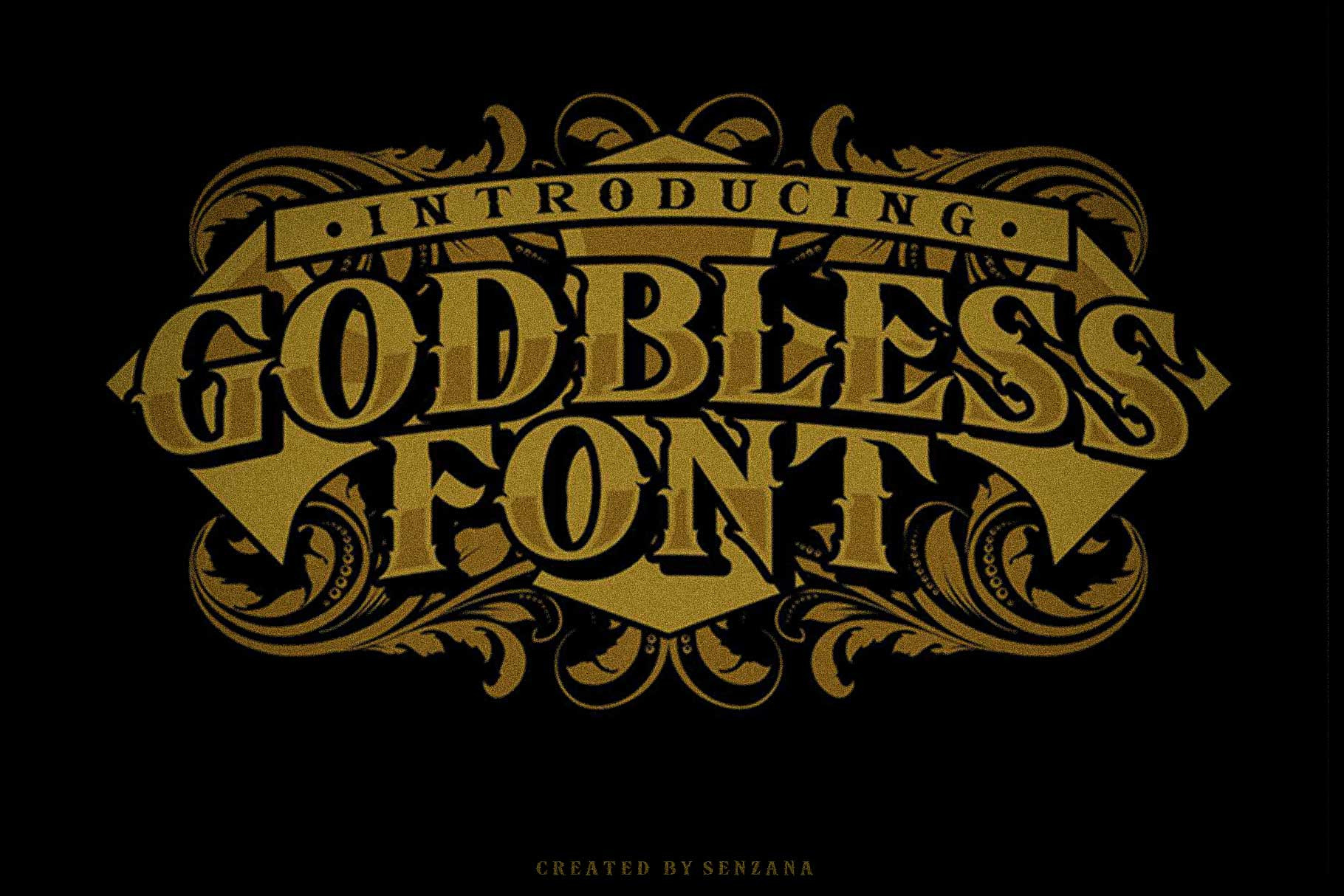
GODBLESS FONT
GODBLESS FONT this is a font with a modern gothic style, it is very suitable to explore the creativity of your work in the fields of logos, bands, posters etc.